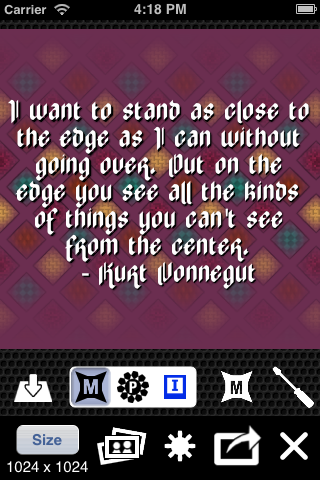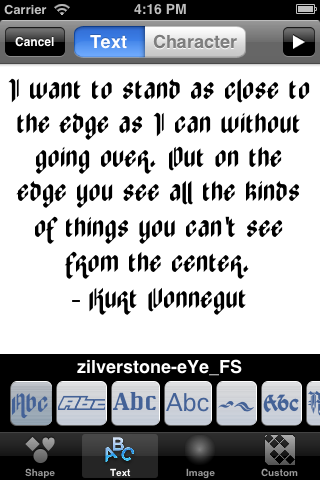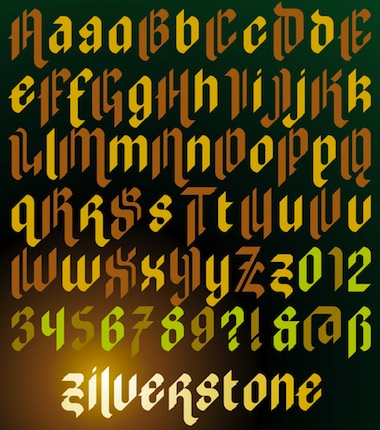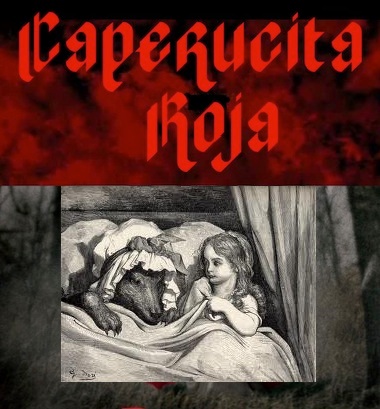
zilverstone eYe/FS
by elmoyenique
Alternatives to the "a" at the " * " (more classic) or the " % " (more modern). Diacritics and other glyphs coming soon.
Papi's on fire...red hot! :-)
10/10! I love the 'a' at '*' the best :-)
@LexKominek: Thanks a lot, master. I am glad you liked this font. Truly, I was very undecided how to make the letter "a", so I have put here the three solutions that I came. I agree with you that the "a" more classic is certainly the most artistic, but it presents some difficulties for readability when it is used in long texts. For headlines, using it is spectacular.
WOW. GREAT JOB.
You are one of the best FontStructors here. This is a fantastic blackletter creation. I hail you.
Lovely. Do you have copyright on the picture of little red riding hood? If not please replace ;-)
@meek: Sorry! Sample changed.
What lovely letters you have my dear.
wow~ 10/10
@aphoria: Hahahaha! At the first look, I think you're talking about the font... but you're making a joke about the tale! Thanks, master. And what can I write now? Something like: "All the better to read with, my child."?
Fantastic!
N.B.: Diacritics are now like a shot of sand in my throat. I will continue them soon, I promise.
But I like this small, mischievous font. I'm still working on it.
This font reminds me of olde english a little. Its great!
is a god font is i a use this font for my videos for youtube
Nice fluid Gothic!
And possible to draw with a fountain pen, good work.
Amazing!! One interesting thing is that it almost has the appearance that each letter is slightly lower than the last.
Simply gorgeous! 10/10.
I missed this gem when it first appeared - I'm so glad that it has come to light again.
The font working at the "String Magazine" (Vancouver, Canada).
Freakin’ awesome, Elmo. Congratulations on the lovely magazine spread!
Well done on this latest success. It's us who should start calling you maestro ... you deserve the accolade.
Congratulations. Nice work. I join p2pnut in the hope it's not too late to award this beautiful font. 10/10